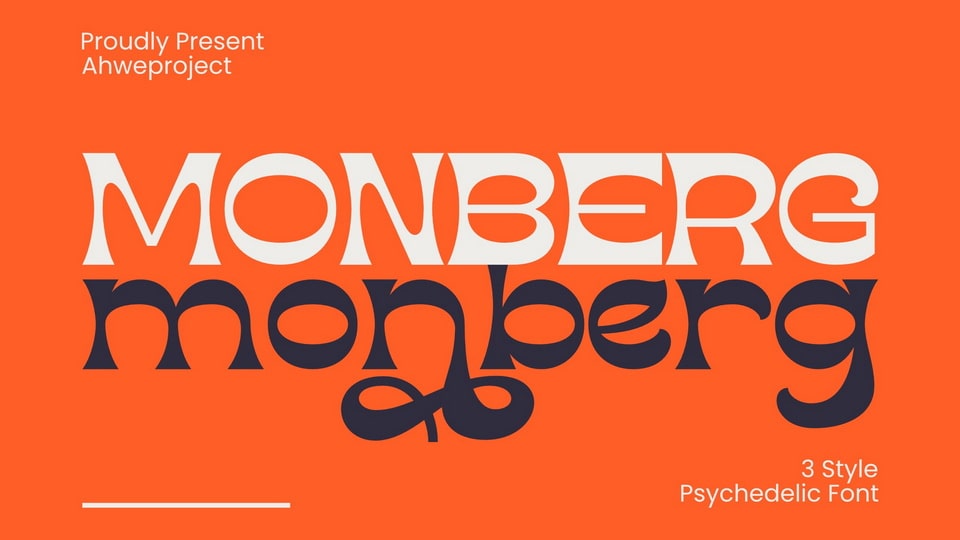
Download Monberg font, a dynamic display typeface that effortlessly elevates logos and branding, breathes life into social media posts, and bestows a distinguished touch on advertisements and product designs.